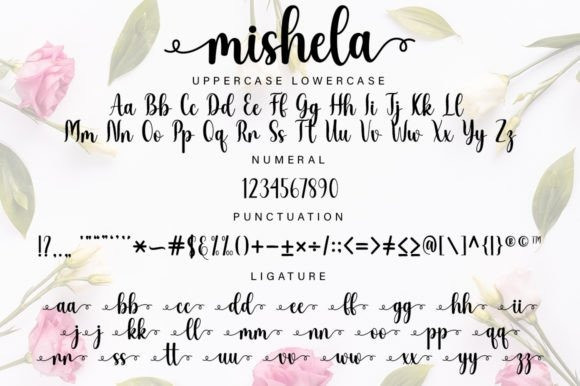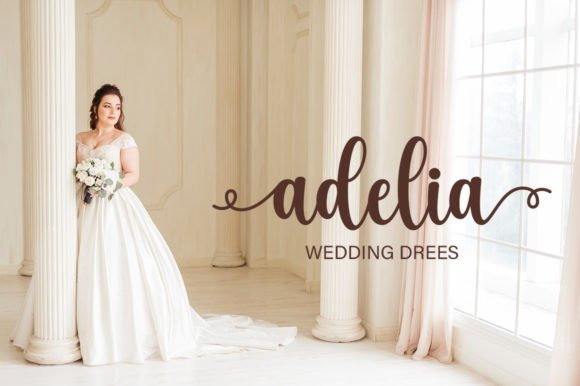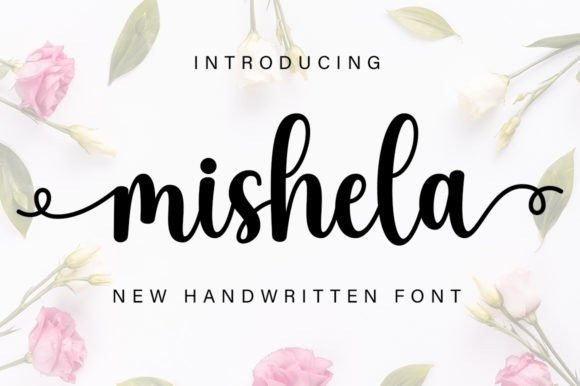
Mishela Font
Mishela Font latest style letters are perfect for wall displays, wedding invitations, social media post logos, advertisements, product packaging, product designs, labels, photography, watermarks, invitations, stationery, and any project that requires handwritten taste.